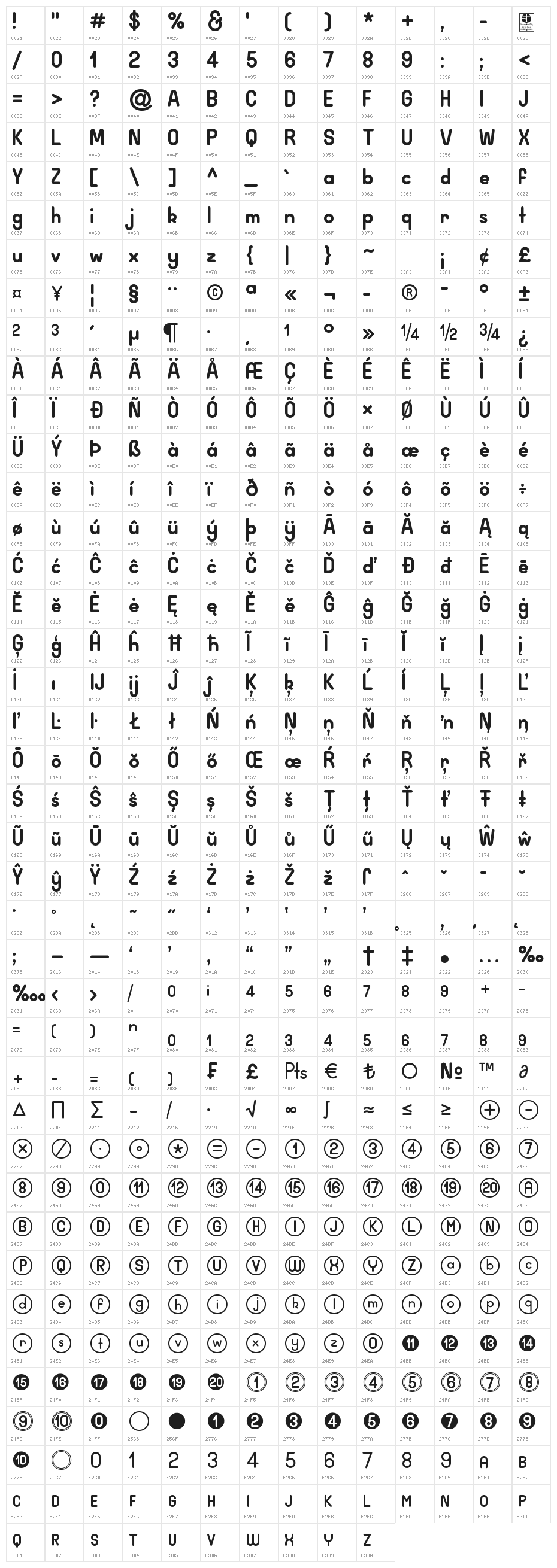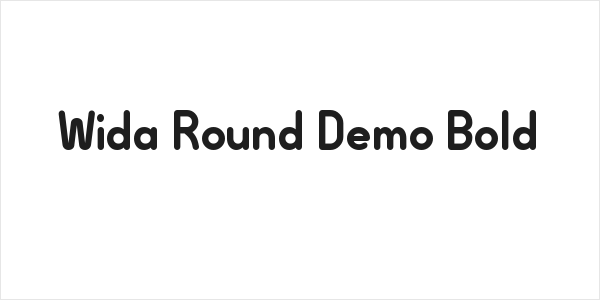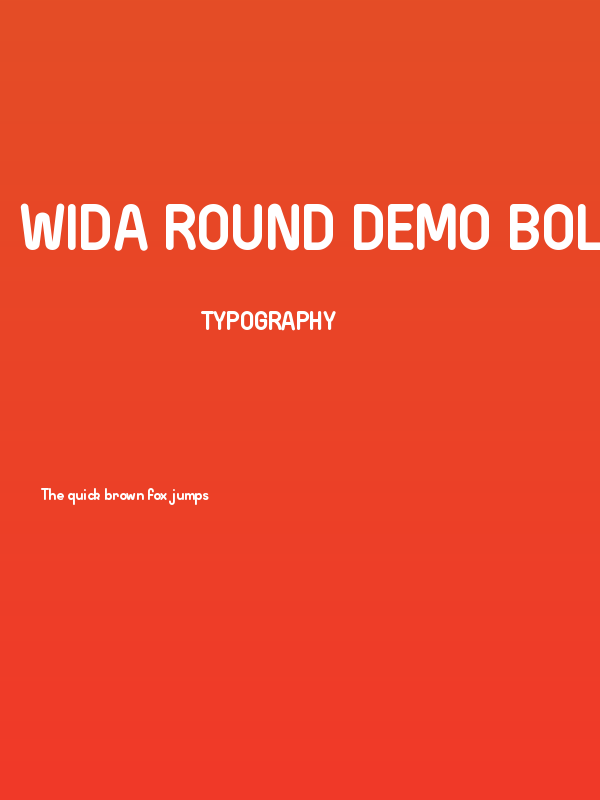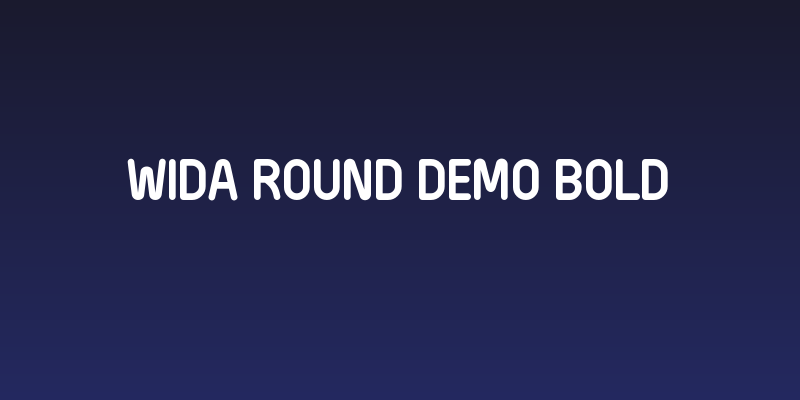
Wida Round Demo Bold Font
Wida Round Demo Bold Description
This font features a rounded, bold style that exudes a friendly and approachable vibe. The characters are evenly weighted, with smooth curves and a consistent stroke width that gives it a modern and clean appearance. The uppercase and lowercase letters maintain a uniform height, contributing to its balanced look. The numerals and special characters are designed with the same rounded edges, ensuring a cohesive feel across all elements. Its simplicity and clarity make it highly legible, even at smaller sizes, while the boldness adds emphasis and impact.
| Proposed Projects | Ideal for branding, advertising, children's books, and digital interfaces where a friendly and approachable tone is desired. |